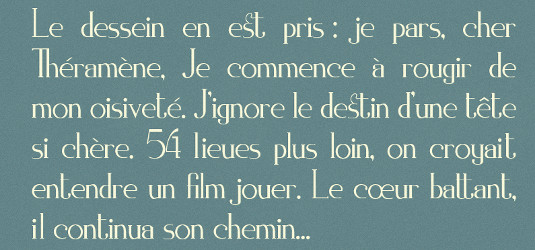
Font of the day: Zorus Serif
Zorus Serif by Jérémie Dupuis
Zorus Serif is a delightfully retro font created by Canadian designer Jérémie Dupuis. Its antique glyphs have a distinctly gallic feel to them, and we think it'd be a perfect fit for a print project that needs a quirky, old-fashioned look.